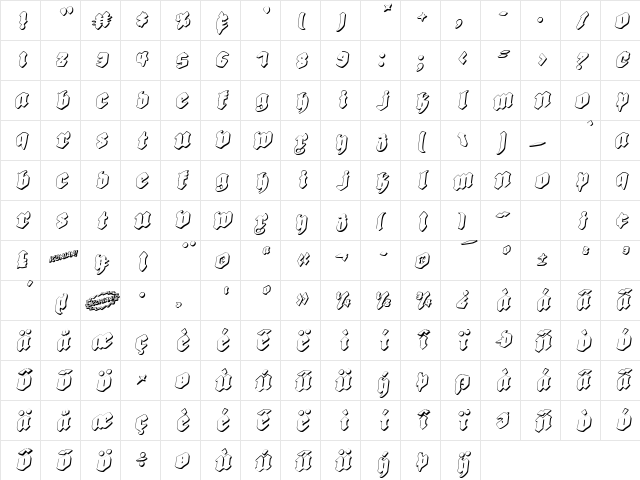
Complete Biergen Rotalic Shadow glyph index. Displaying only characters natively supported by Biergen Rotalic Shadow font.
Biergen is built around its visual character rather than neutral utility - its distinctive forms are designed to make an impression at display sizes.
Font Pairing: Pair with a clean neutral sans-serif for body copy to let Biergen's character lead without overwhelming the composition.
Pro Tip: Use Biergen exclusively at display sizes - it was designed to be seen, not read at length. Let a neutral companion handle body copy.